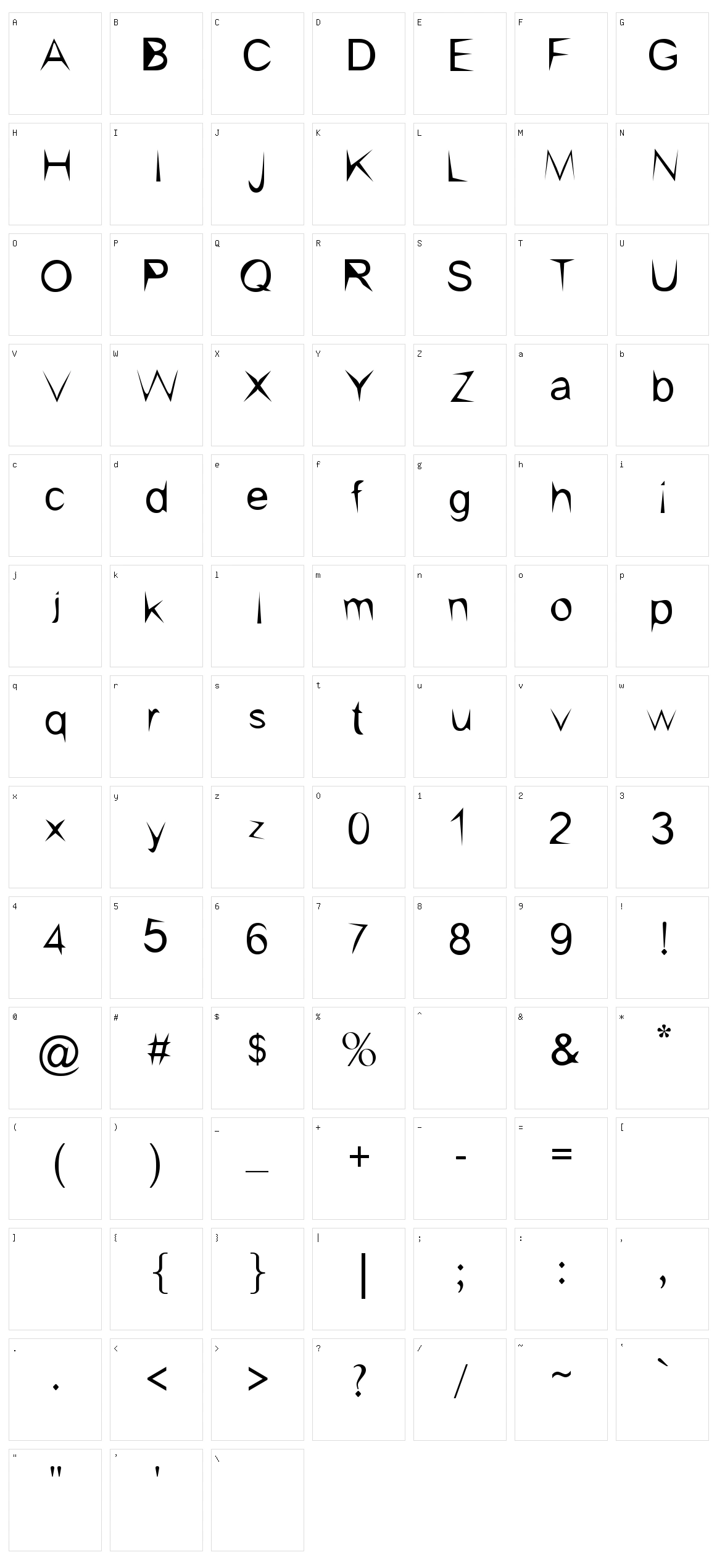
The free font Kishore Sharp is carefully designed by Mozert Kishore, showcasing a thoughtful balance of creativity and usability and falls under the Horror font style. When you download the ZIP file, it contains only 14.58 KB of font files, making it lightweight and quick to download. Please review the license details below to understand permitted usage and distribution rights. If license information is not available, we recommend using this font for personal projects only or contacting the author directly for commercial usage permissions.